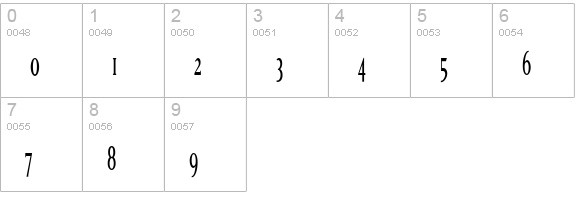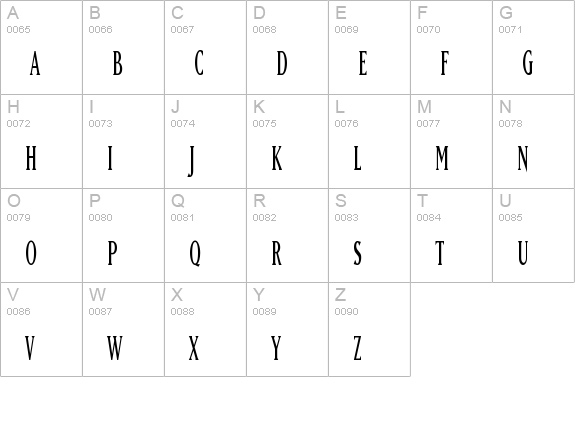
Matrix-Narrow Font Details
Matrix-Narrow is a distinctive, condensed-width variant in the Matrix typeface family \xE2\x80\x94 well suited to design and typography projects.
Matrix-Narrow font is a sleek and modern typeface designed for a variety of design projects. Its narrow letterforms exude a sense of sophistication and elegance, making it perfect for creating a clean and professional look. The sharp angles and precise lines of Matrix-Narrow font give it a futuristic and tech-savvy vibe, ideal for projects related to technology, science, or innovation. Best of all, Matrix-Narrow font is available for free download at FontsMarket.com. This means you can easily add this stylish font to your design arsenal without any cost. Whether you're working on a website, poster, logo, or any other design project, Matrix-Narrow font will bring a touch of modernity and style to your work. Download Matrix-Narrow font today and elevate your designs to the next level.